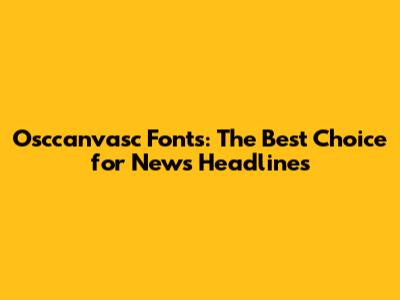
- Choose the Right Weight: Consider the tone of the news story. A serious headline might call for a bold weight, while a lighter story could use something more delicate.
- Mind the Spacing: Ensure there's enough space between letters and lines for optimal readability. Cramped text is a no-go!
- Pair Wisely: Choose complementary fonts for the body text to create a balanced and visually appealing design.
- Test Across Devices: Make sure your headlines look good on all devices, from desktops to smartphones.
- Stay Consistent: Use the same Osccanvasc font family across your news platform to maintain a cohesive brand identity.
Choosing the right font for news headlines is super important, guys! It's not just about making things look pretty; it's about grabbing attention, making the content easy to read, and setting the tone for the entire article. In this article, we're diving deep into why Osccanvasc fonts are becoming a go-to choice for news headlines. We'll explore what makes them special, how they impact readability, and why they can be a game-changer for news outlets.
What are Osccanvasc Fonts?
So, what exactly are Osccanvasc fonts? Well, they're a family of fonts designed with clarity and impact in mind. These fonts often feature clean lines, balanced letterforms, and a modern aesthetic that makes them perfect for digital and print media. They're crafted to ensure that each character is easily distinguishable, even at smaller sizes, which is crucial for headlines that need to be read quickly and efficiently.
One of the key characteristics of Osccanvasc fonts is their versatility. They come in various weights and styles, from bold and commanding to light and elegant, allowing news outlets to choose the perfect font to match their brand and the tone of the news story. This adaptability makes them a valuable asset in creating a cohesive and engaging visual experience for readers. Moreover, Osccanvasc fonts are designed to be highly legible on different devices and screen resolutions, ensuring that readers have a consistent experience whether they're viewing the news on a desktop, tablet, or smartphone. This is particularly important in today's mobile-first world, where a significant portion of news consumption happens on mobile devices. The careful attention to detail in Osccanvasc fonts ensures that they remain readable and visually appealing, regardless of the viewing environment. Furthermore, the developers of Osccanvasc fonts often prioritize compatibility with various operating systems and software, making them accessible to a wide range of users. This broad compatibility means that news organizations can seamlessly integrate these fonts into their existing workflows without encountering technical issues. In addition to their technical advantages, Osccanvasc fonts also offer aesthetic benefits that can enhance the overall appeal of news headlines. Their modern and clean design can convey a sense of professionalism and credibility, which is essential for news outlets aiming to build trust with their audience. By choosing Osccanvasc fonts, news organizations can communicate that they value clarity, accuracy, and visual appeal, all of which contribute to a positive reading experience. Finally, the ongoing development and refinement of Osccanvasc fonts ensure that they remain at the forefront of typographic design. Font foundries continuously update and improve these fonts based on user feedback and emerging trends, ensuring that they meet the evolving needs of the news industry. This commitment to continuous improvement means that news organizations can rely on Osccanvasc fonts to provide a contemporary and effective solution for their headline typography needs.
Why Osccanvasc Fonts Excel in Readability
Readability is king, especially when it comes to news headlines. Osccanvasc fonts are designed with this in mind. Their clear and distinct letterforms prevent confusion, even when the reader is quickly scanning the page. This is achieved through careful attention to factors like x-height, letter spacing, and stroke contrast.
The x-height, which is the height of the lowercase letters, is optimized in Osccanvasc fonts to make the text appear larger and more legible. The generous letter spacing ensures that each character has enough breathing room, preventing them from blurring together and making the text easier to read at a glance. The stroke contrast, which refers to the difference in thickness between the thick and thin parts of the letters, is carefully balanced to provide visual interest without compromising readability. In addition to these design elements, Osccanvasc fonts often incorporate features that enhance readability in specific contexts. For example, some fonts include alternative glyphs for certain characters that may be easily confused with others, such as the lowercase 'i' and 'l'. These subtle variations can make a significant difference in readability, particularly in headlines where every character counts. Furthermore, Osccanvasc fonts are often designed to perform well in a variety of sizes and weights. This means that they remain legible and visually appealing whether they are used in large, bold headlines or smaller, more subtle subheadings. This versatility makes them a valuable asset for news organizations that need to maintain a consistent visual identity across different platforms and formats. Another factor that contributes to the readability of Osccanvasc fonts is their careful attention to kerning, which is the spacing between individual pairs of letters. Proper kerning ensures that the letters fit together harmoniously, creating a smooth and even texture that is pleasing to the eye. This attention to detail can significantly improve the reading experience, particularly for readers who are sensitive to typographic nuances. Moreover, the designers of Osccanvasc fonts often conduct extensive testing to ensure that their fonts perform well in real-world reading scenarios. This testing may involve evaluating the fonts' readability under different lighting conditions, on different screen resolutions, and with different font sizes and weights. By conducting this rigorous testing, the designers can identify and address any potential readability issues before the fonts are released to the public. Finally, the ongoing research and development in the field of typography continue to inform the design of Osccanvasc fonts. As new technologies and reading habits emerge, font designers adapt their designs to meet the evolving needs of readers. This commitment to continuous improvement ensures that Osccanvasc fonts remain at the forefront of readability and visual appeal.
Making an Impact: How Osccanvasc Fonts Grab Attention
In the crowded digital landscape, grabbing attention is half the battle. Osccanvasc fonts are designed to stand out. Their modern and authoritative look can instantly draw the reader's eye, making them more likely to engage with the news content. The clean lines and balanced forms convey a sense of professionalism and credibility, which can be crucial in building trust with the audience.
The visual impact of Osccanvasc fonts is not just about aesthetics; it's also about psychology. The careful selection of font styles and weights can evoke specific emotions and associations in the reader's mind. For example, a bold and condensed Osccanvasc font can convey a sense of urgency and importance, while a lighter and more elegant font can create a feeling of sophistication and trustworthiness. By understanding these psychological effects, news organizations can use Osccanvasc fonts to craft headlines that resonate with their target audience and encourage them to click through and read the full story. In addition to their inherent visual appeal, Osccanvasc fonts can also be used in conjunction with other design elements to create a more impactful headline. For example, strategic use of color, typography, and imagery can amplify the font's message and make the headline even more attention-grabbing. News organizations can experiment with different combinations of these elements to find the perfect formula for their brand and their target audience. Furthermore, the versatility of Osccanvasc fonts allows news organizations to adapt their headline typography to suit different platforms and formats. For example, a headline that looks great on a desktop computer may not be as effective on a mobile device. By using responsive typography techniques, news organizations can ensure that their headlines remain visually appealing and attention-grabbing regardless of the device being used. Another factor that contributes to the impact of Osccanvasc fonts is their ability to convey a sense of modernity and innovation. In today's fast-paced world, readers are drawn to things that feel fresh and cutting-edge. By using Osccanvasc fonts, news organizations can signal that they are keeping up with the latest trends and technologies, which can help them attract and retain readers. Moreover, the ongoing development and refinement of Osccanvasc fonts ensure that they remain at the forefront of typographic design. Font foundries continuously update and improve these fonts based on user feedback and emerging trends, ensuring that they meet the evolving needs of the news industry. This commitment to continuous improvement means that news organizations can rely on Osccanvasc fonts to provide a contemporary and effective solution for their headline typography needs. Finally, the impact of Osccanvasc fonts can be further enhanced by considering the overall visual context in which they are used. Factors such as the layout of the page, the color scheme, and the surrounding imagery can all influence how the headline is perceived. By paying attention to these details, news organizations can create a cohesive and visually appealing design that maximizes the impact of their headlines.
Real-World Examples: News Outlets Using Osccanvasc Fonts
Don't just take my word for it! Many leading news outlets are already using Osccanvasc fonts to enhance their headlines. From online news portals to print newspapers, these fonts are making a noticeable difference in how readers perceive and engage with the news. These outlets often choose Osccanvasc fonts for their clean, modern look and their ability to convey a sense of authority and credibility. They also appreciate the versatility of these fonts, which allows them to adapt their headline typography to suit different platforms and formats.
One example of a news outlet using Osccanvasc fonts is a major online news portal that has adopted these fonts for its website and mobile app. The portal has found that the clean lines and balanced forms of Osccanvasc fonts make their headlines more readable and attention-grabbing, which has led to an increase in click-through rates and reader engagement. Another example is a print newspaper that has switched to Osccanvasc fonts for its headlines. The newspaper has found that these fonts provide a modern and sophisticated look that enhances the overall visual appeal of the paper. They have also found that the fonts are highly legible, even at smaller sizes, which is important for headlines that need to fit within limited space. In addition to these specific examples, many other news outlets are experimenting with Osccanvasc fonts and finding them to be a valuable asset in their efforts to attract and retain readers. These outlets are often drawn to the versatility of these fonts, which allows them to create a consistent visual identity across different platforms and formats. They also appreciate the ongoing development and refinement of Osccanvasc fonts, which ensures that they remain at the forefront of typographic design. Moreover, the use of Osccanvasc fonts by leading news outlets is a testament to their effectiveness in conveying a sense of professionalism and credibility. In today's fast-paced world, readers are often bombarded with information from various sources, and it can be difficult to determine which sources are trustworthy. By using Osccanvasc fonts, news outlets can signal that they are committed to providing accurate and reliable information, which can help them build trust with their audience. Furthermore, the real-world examples of news outlets using Osccanvasc fonts demonstrate the importance of typography in the overall design of news publications. Typography is not just about aesthetics; it is also about functionality and readability. By choosing the right fonts, news outlets can make their content more accessible and engaging for readers, which can lead to increased readership and reader satisfaction. Finally, the success of Osccanvasc fonts in the news industry highlights the importance of continuous innovation and experimentation in the field of typography. As new technologies and reading habits emerge, font designers must adapt their designs to meet the evolving needs of readers. By embracing this spirit of innovation, the news industry can continue to provide high-quality content that is both visually appealing and informative.
Tips for Using Osccanvasc Fonts Effectively